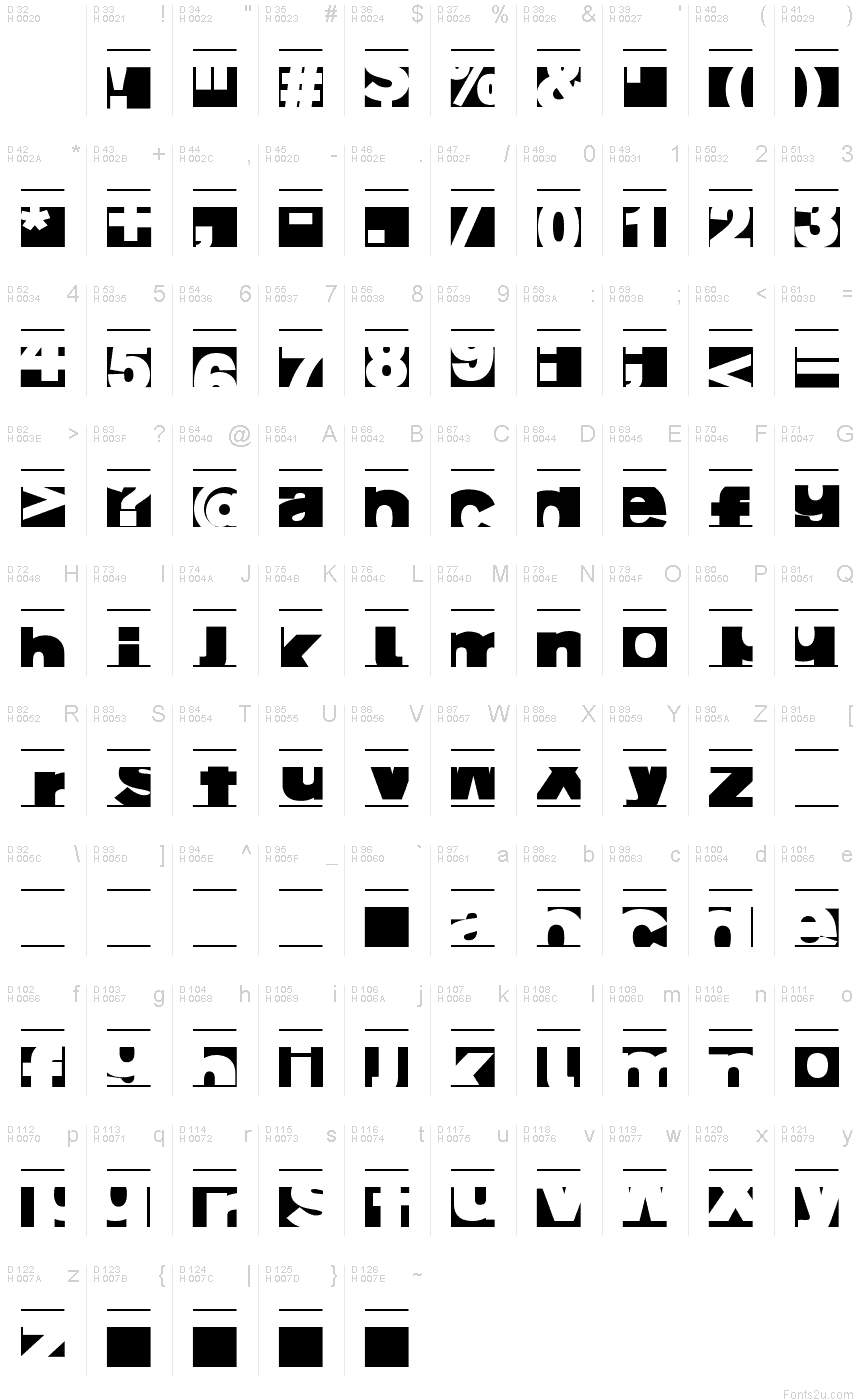
FragmentAZ
Fragment AZ font by Manfred Klein is a free decorative display typeface that literally cuts words in half. Massive black bands, sharp white cutouts, and the built‑in underline effect make each word feel like it’s been stenciled through a solid block of ink. The result is bold, abstract, and slightly disorienting—in the best way—so short headlines hit like a visual glitch.
Using Fragment AZ, you can push attention-grabbing posters, album art, experimental logos, book covers, flyers, and motion graphics titles into truly standout territory. This free font works best at large sizes where the sliced shapes and negative space can breathe; pair it with a plain geometric sans for body text to keep the wildness under control.